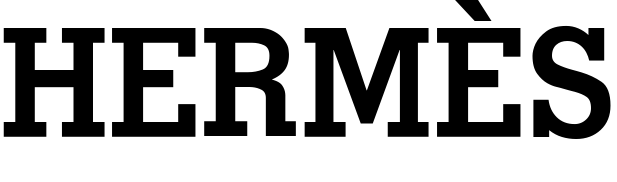
Hermès Font
ApparelHermès is a luxury fashion brand that was founded in 1837 by Thierry Hermes. It is known for its high-quality leather goods, such as handbags, shoes, and accessories, as well as its ready-to-wear clothing and home decor items. The Duke's carriage and horse depict the Hermès emblem since the beginning, which symbolizes the company's origins as a harness workshop. Hermès' logotype and the word "Paris" are displayed beneath the emblem.
The font used for the lettering of Hermès is very similar to Memphis Medium. Memphis is a commercial typeface and it is available for purchase here. Latinotype's Sanchez typeface has a similar aesthetic but a distinct "R" leg. The font family has a wide range of styles and a rather comprehensive character set. The italic and standard styles can be downloaded for free in the Fonts Used Section. Other styles are available as commercial fonts and can be purchased here.